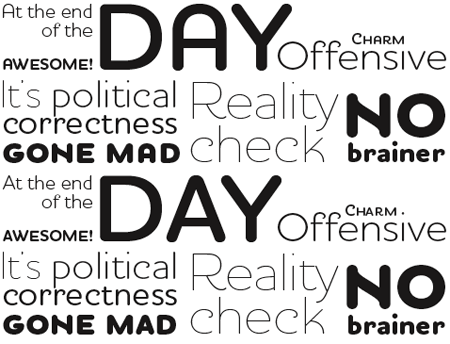
Font Fetish: Houschka Rounded
You know how you can hate a name because it belonged to the kid who shoved you on the playground in third grade? Or you don’t like schnapps because you drank too much of it in college one night that would have been memorable if you hadn’t passed out? …But perhaps I share too much.
In any case, these dislikes aren’t necessarily logical, but they are strong. That’s how I feel about Vag Rounded.
Vag Rounded Black and Bold
However, there’s a new family from G-Type that, while it has whiffs of Vag Rounded, has nonetheless endeared itself to me. May I present Houschka Rounded:
Type designer Nick Cooke created four faces in this family (a companion to the original Houschka family that debuted in 1999): a standard set and three additional stylistic sets.